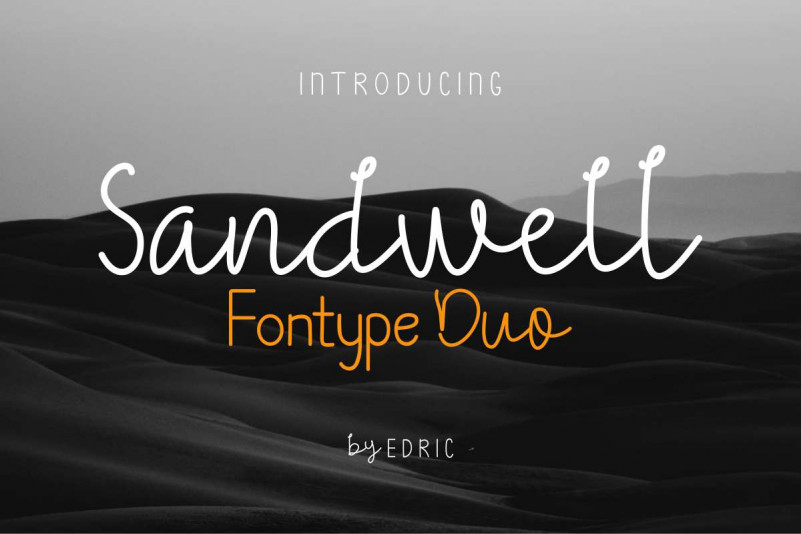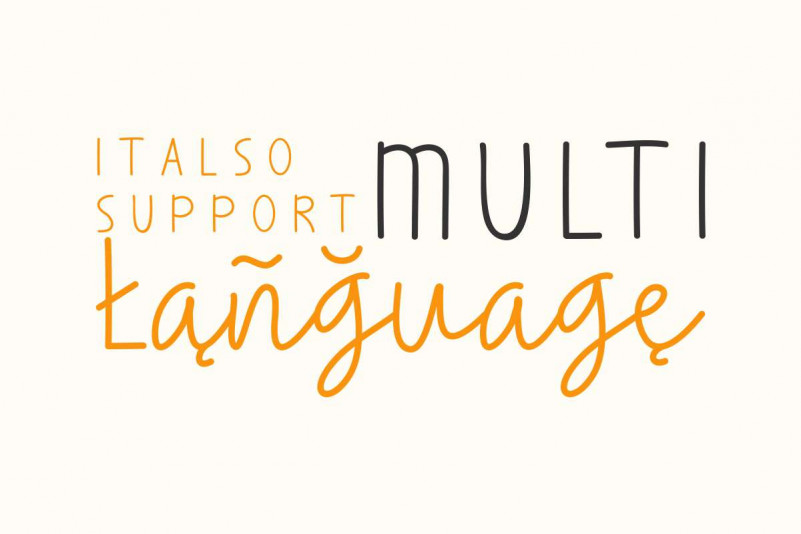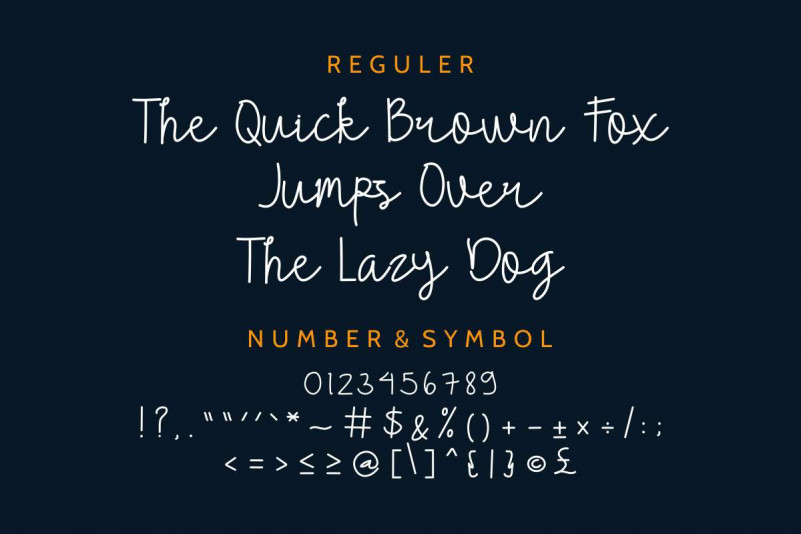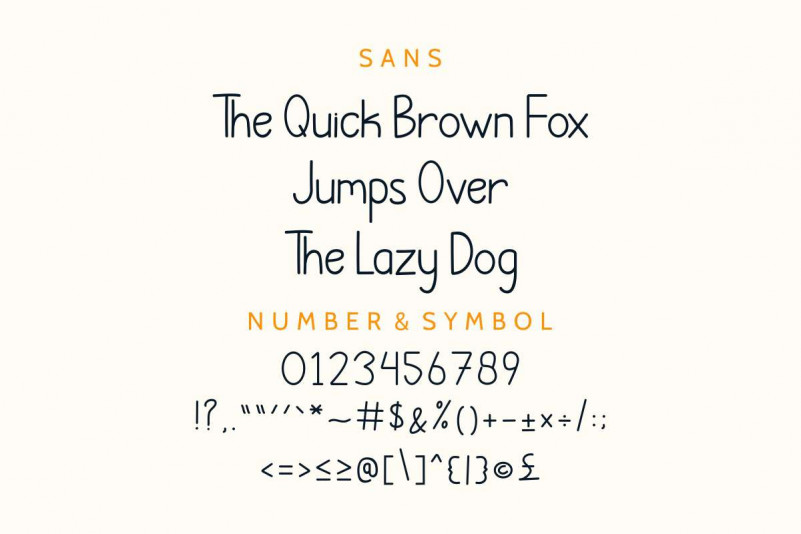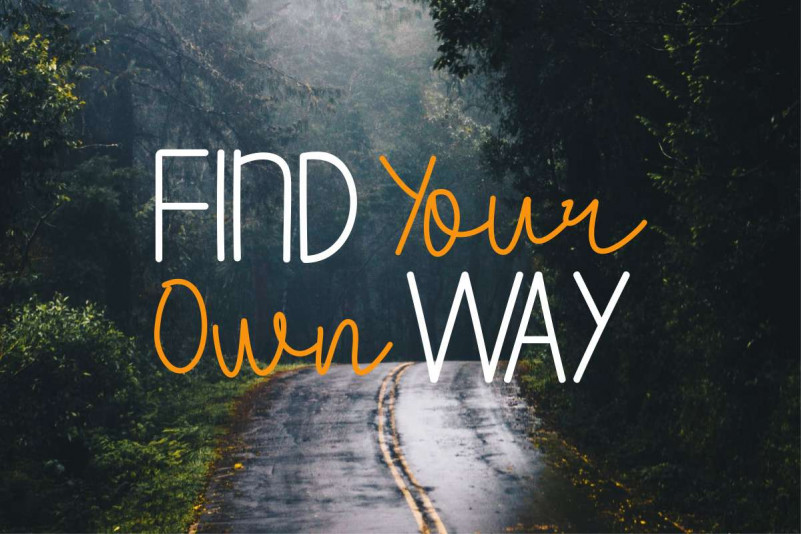
Sandwell Duo Font
Hi Everyone! Introducing our newest font family : Sandwell Duo Font! Sandwell is a new font duo. It has an exclusive, elegant and stylish glyphs. It also support multilanguage accents